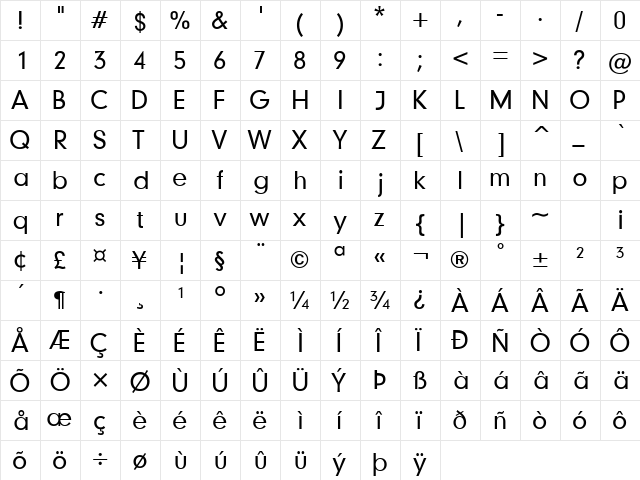
ReprintSSK Regular
Design Context for ReprintSSK Typeface
ReprintSSK offers clean, dependable letterforms without strong stylistic allegiance, making it a practical choice for designers who need flexibility.
Pro Tip: Use ReprintSSK in both headline and body roles to test its range before committing to a single application.